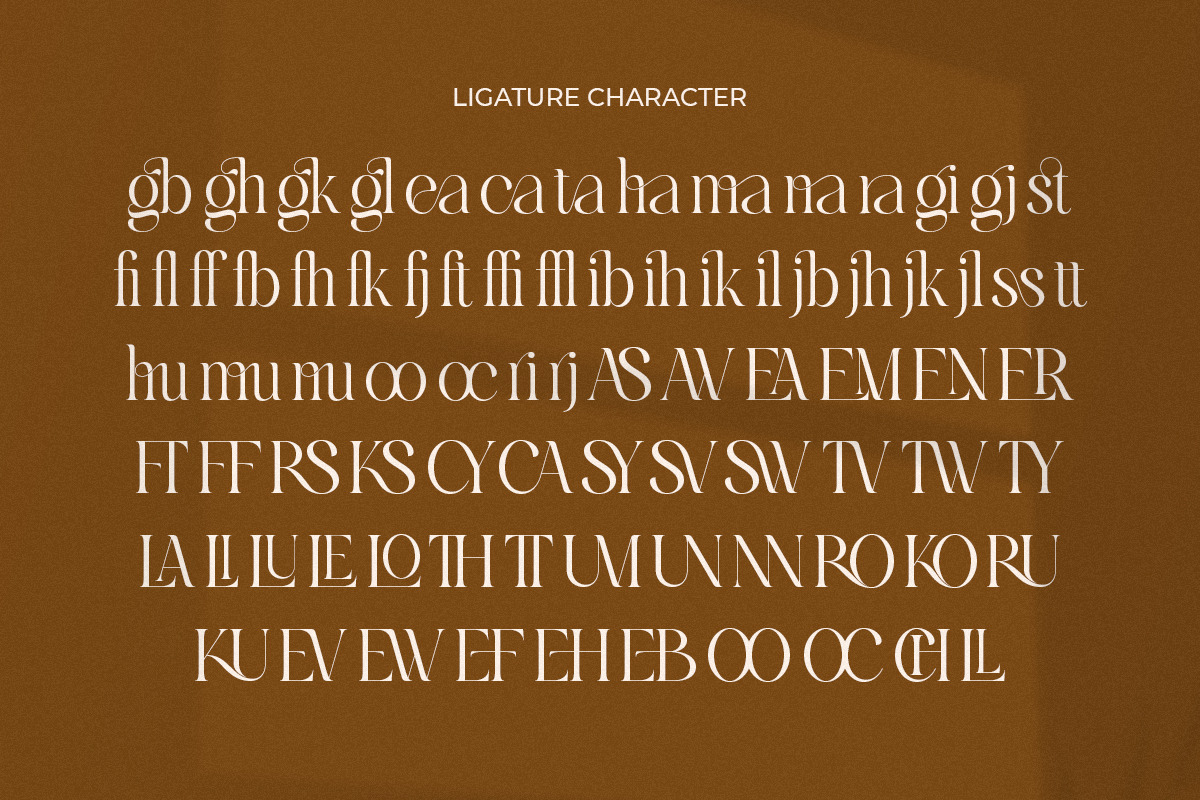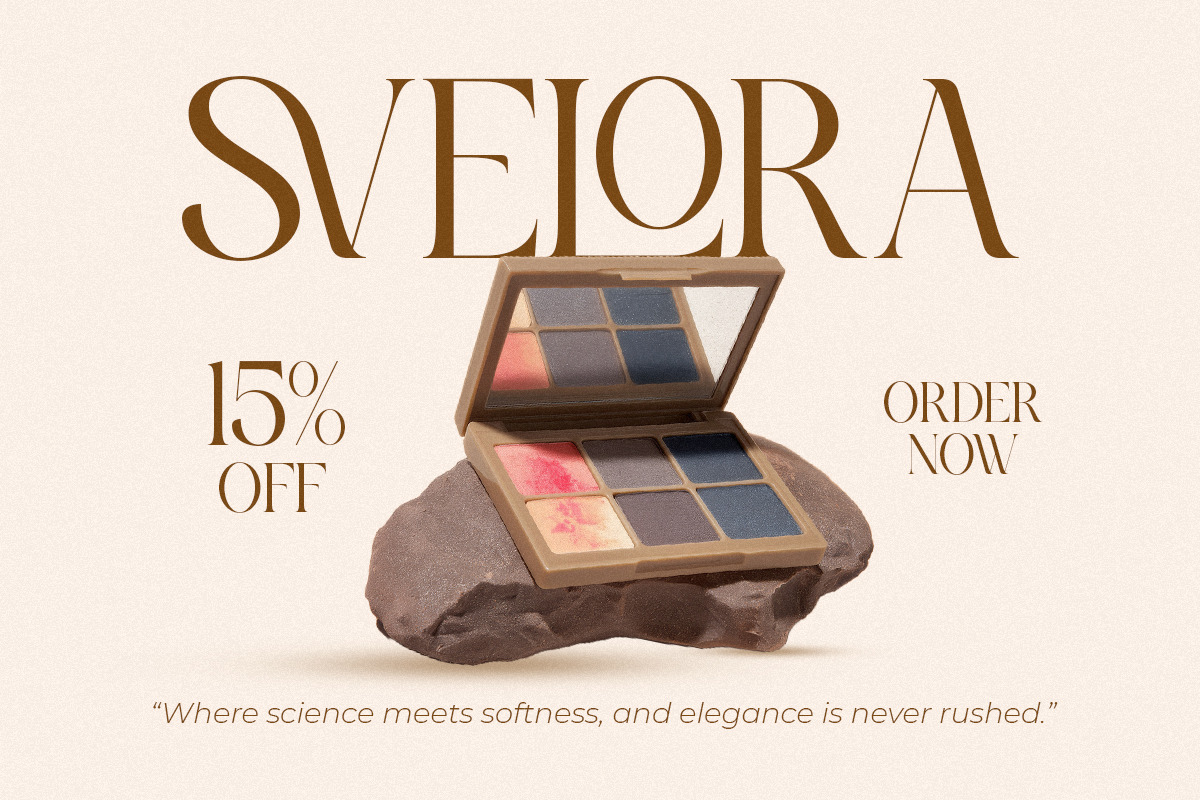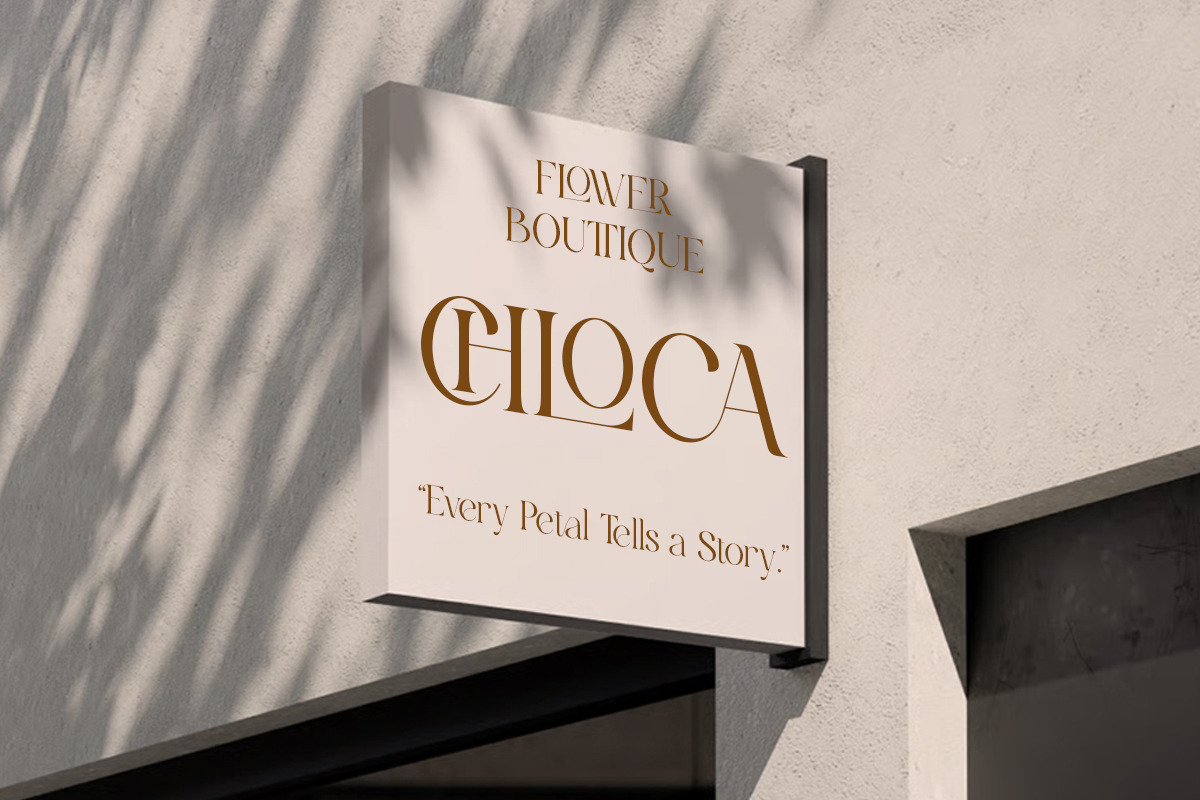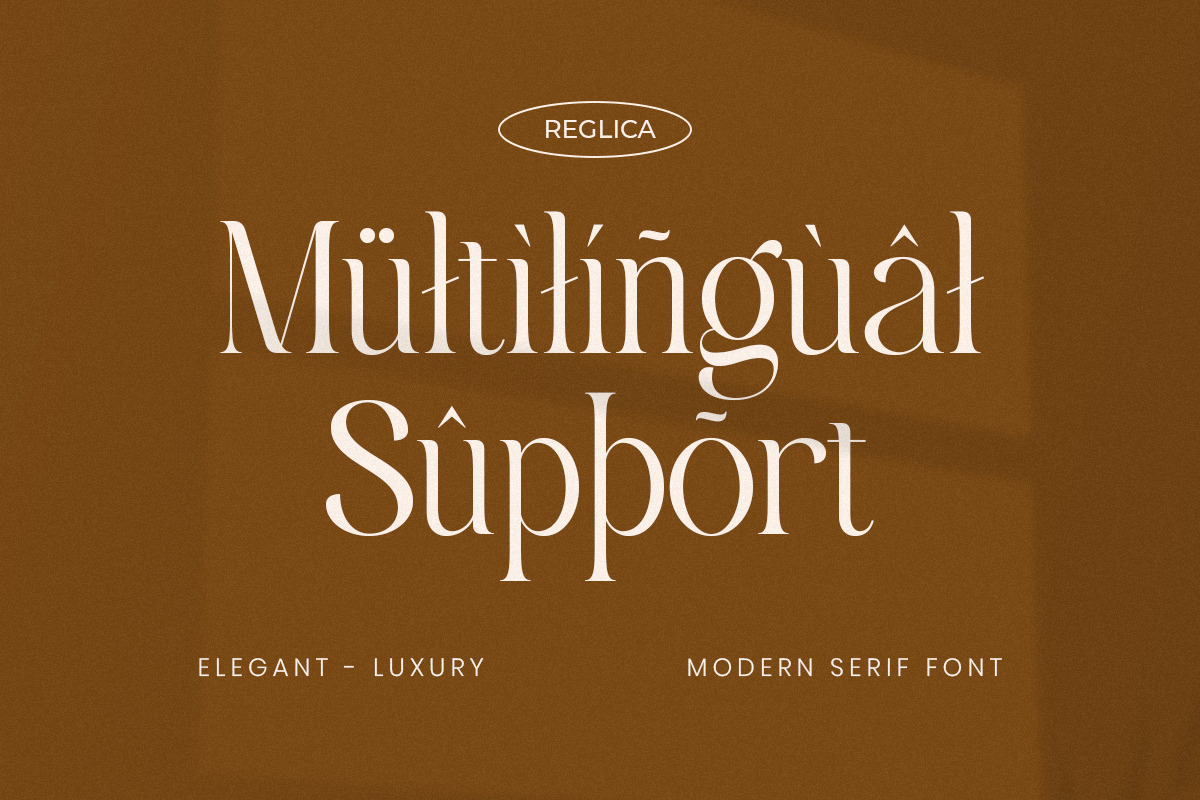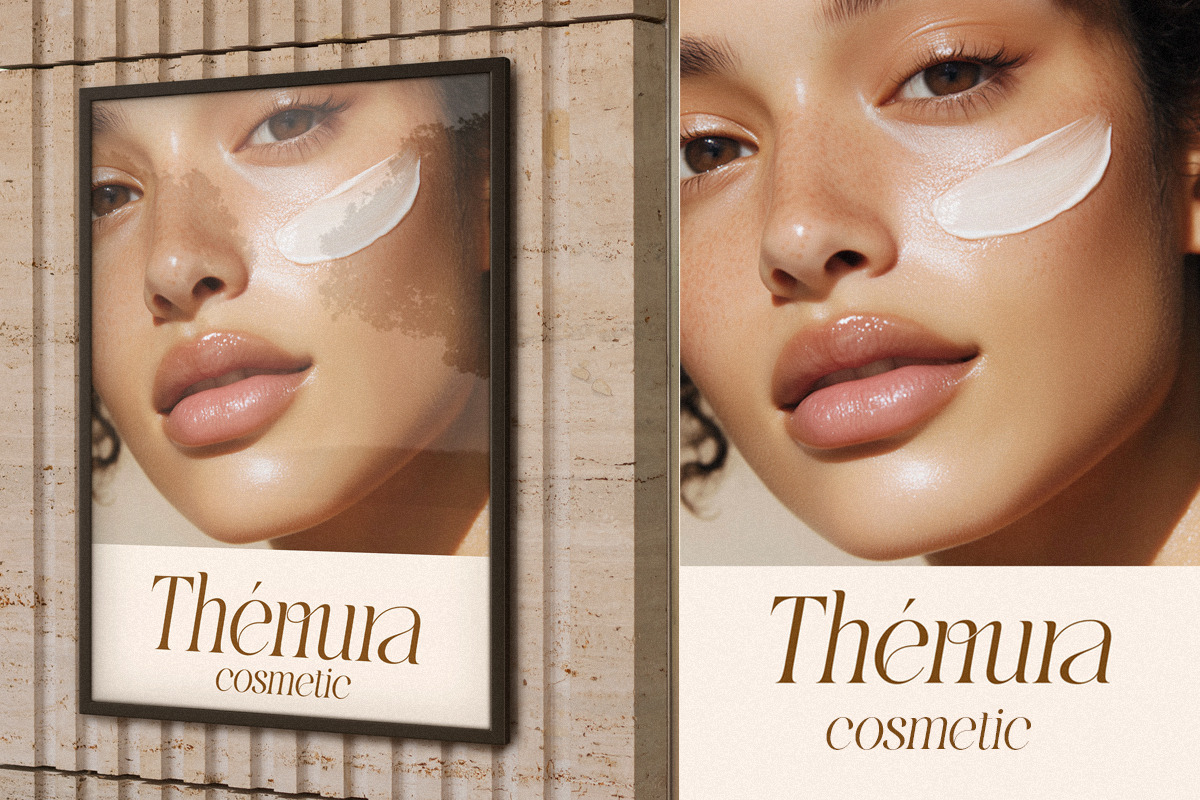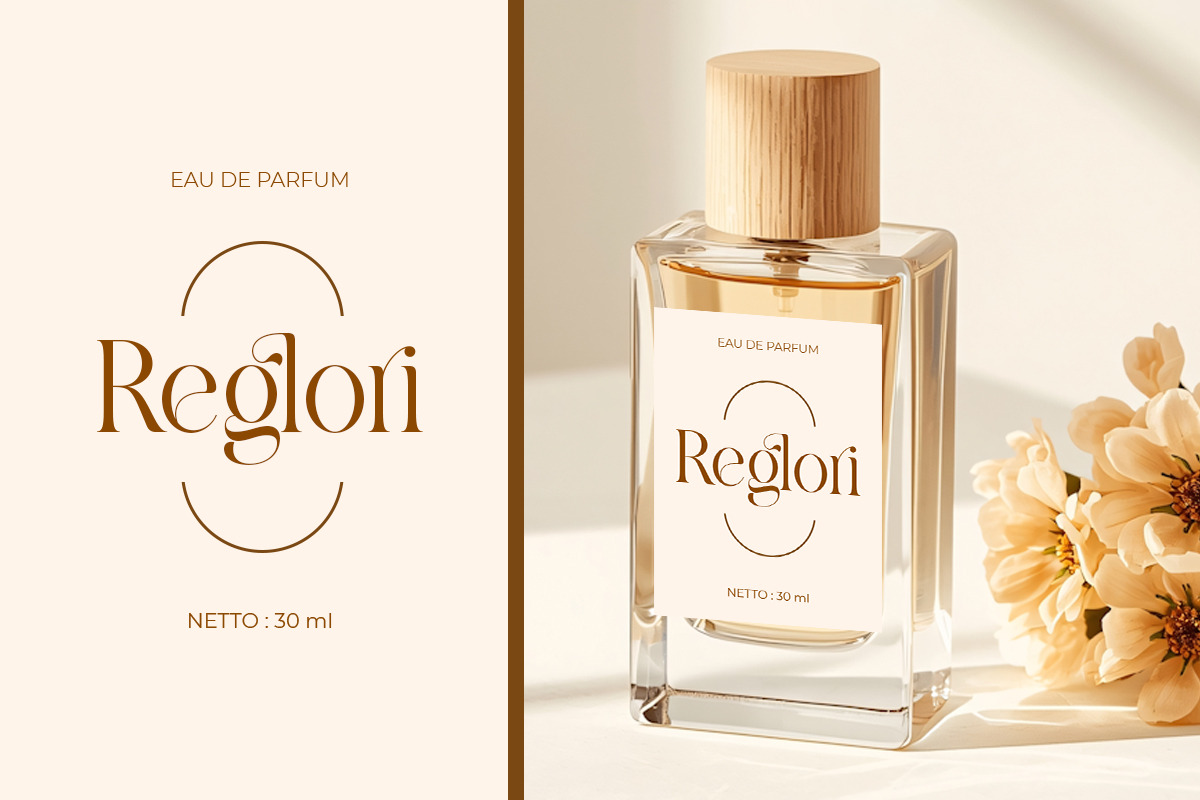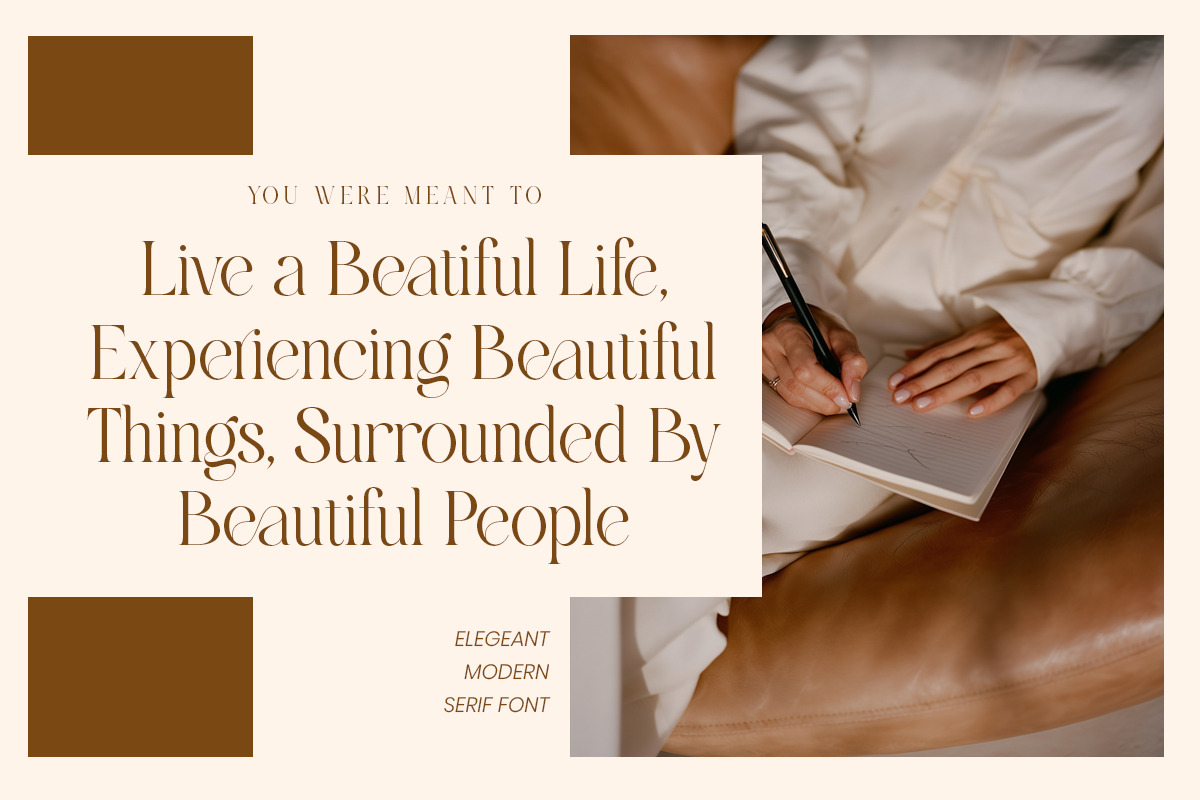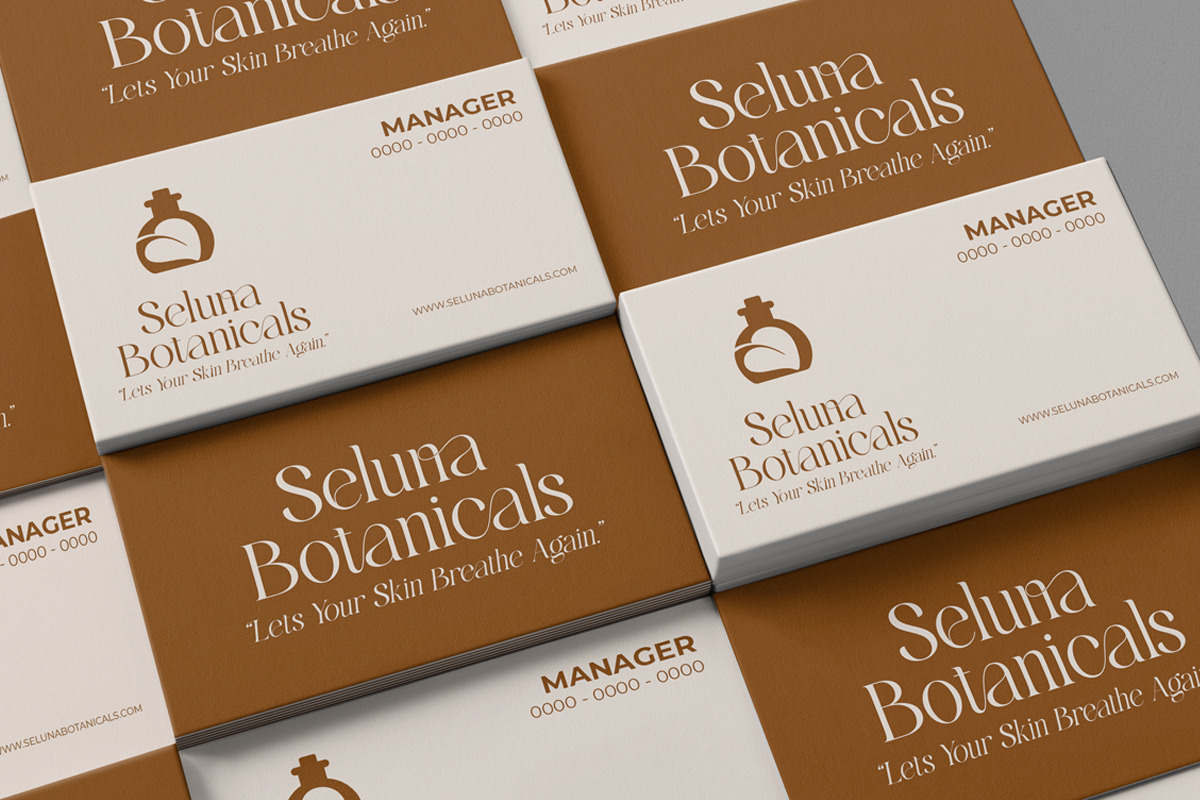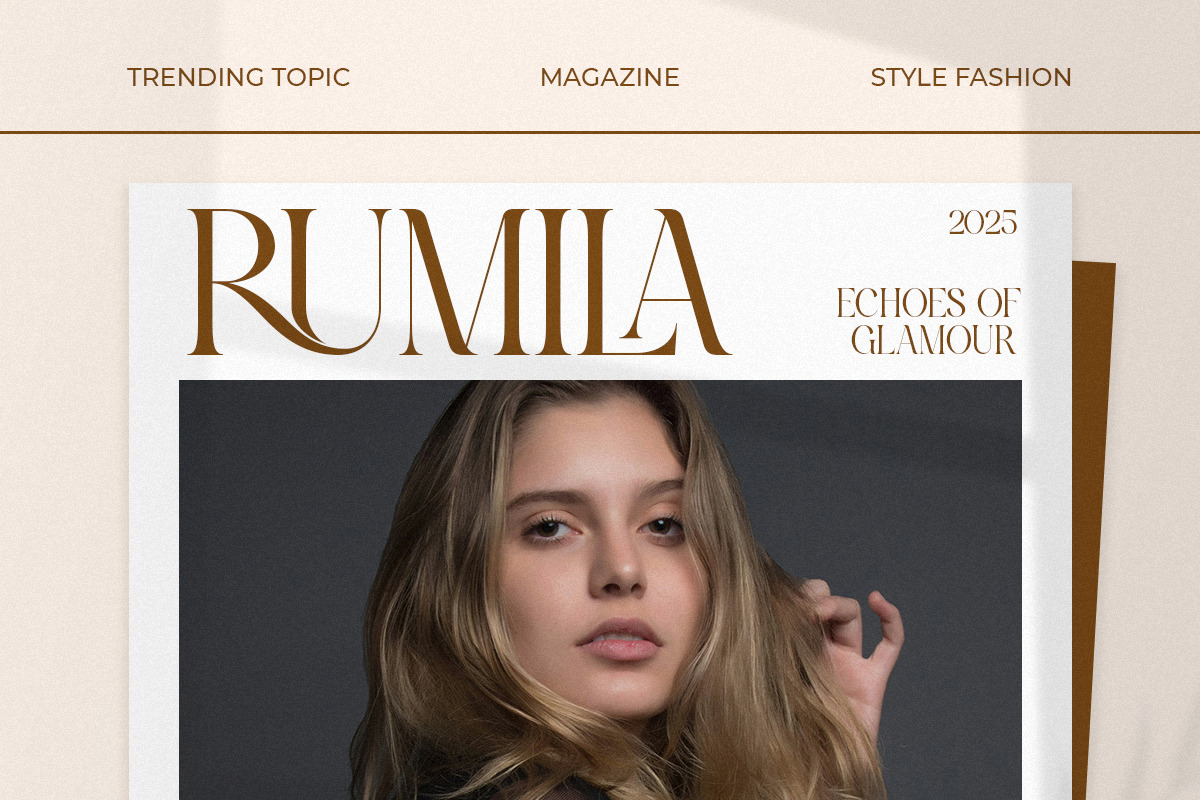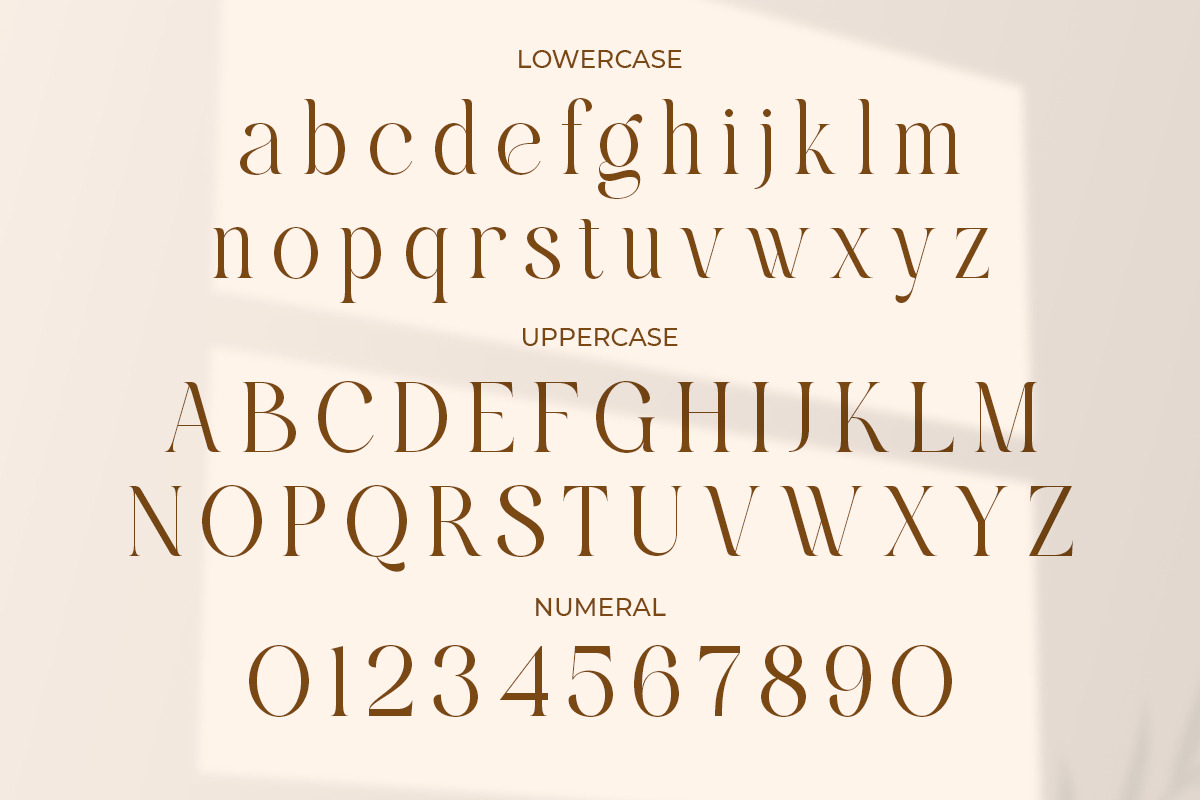
Reglica - Modern Elegant Luxury
Reglica is a modern elegant serif crafted for luxury branding and stylish editorial design. Its refined curves and balanced contrast create a sophisticated typographic presence ideal for premium identity systems.
Perfect for fashion branding, beauty logos, magazine layouts, and boutique packaging, Reglica delivers timeless elegance with contemporary clarity.
Designed for designers who want luxury serif typography with modern character.
- Regular & Italic
- Alternates & ligatures
- Elegant contrast letterforms
- Professional kerning
Fashion branding, logo design, editorial layout, packaging design, beauty branding, boutique identity.